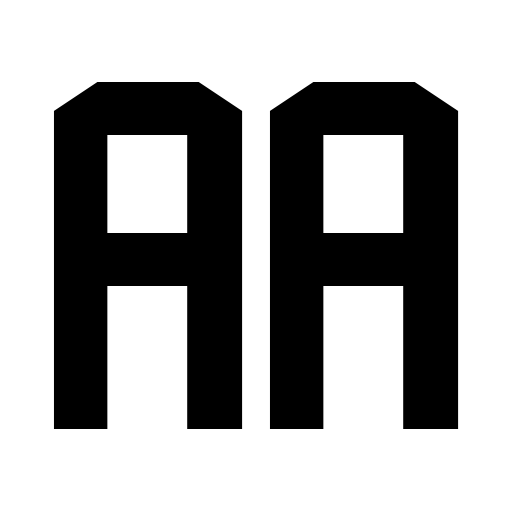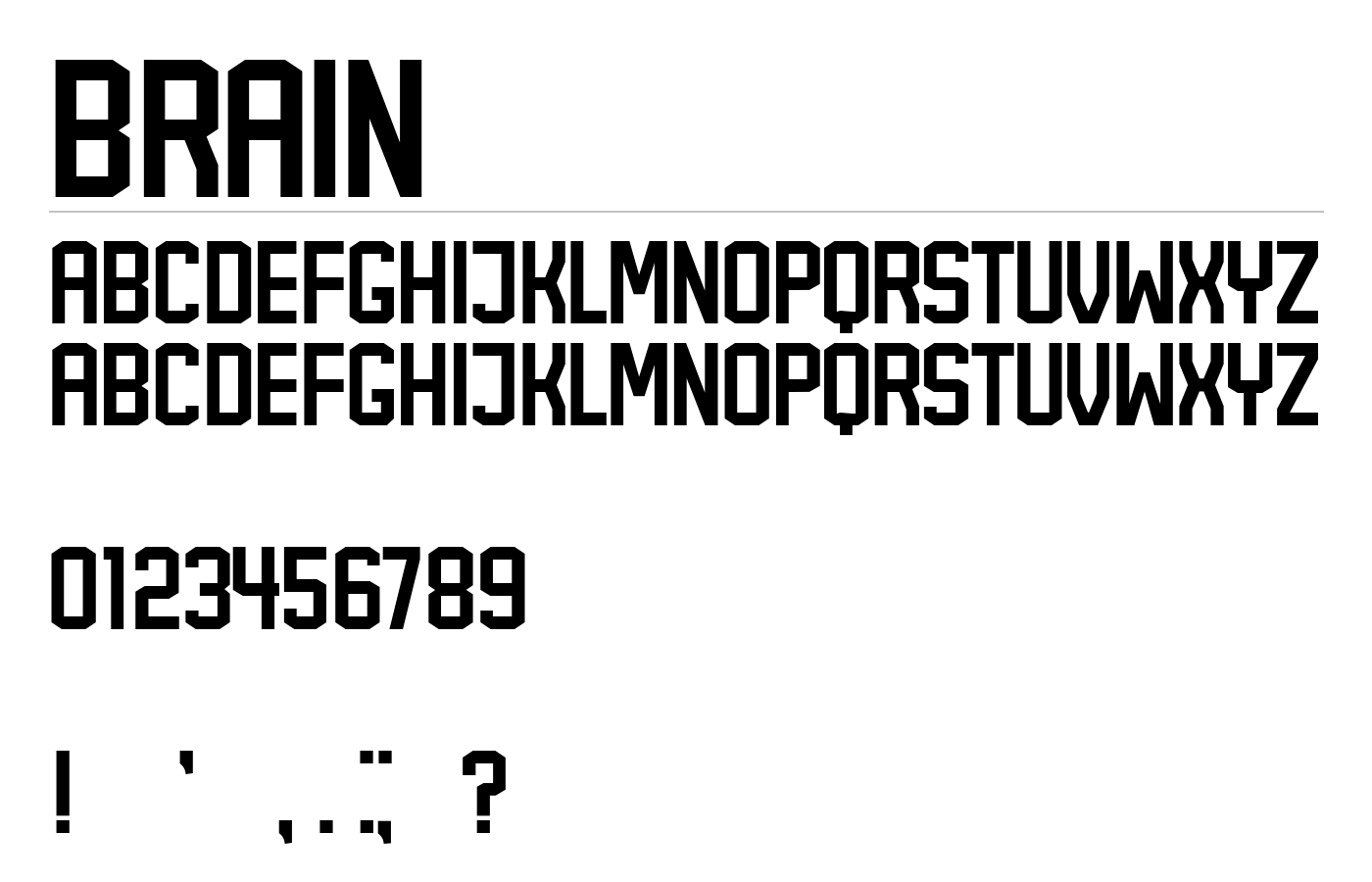
Brain Font is a bold, condensed sans serif typeface with strong geometric shapes and sharp edges, giving it a modern and industrial feel. Its uniform stroke weight and blocky letterforms make it highly legible and impactful, ideal for striking headlines, posters, and branding that demands attention. This font works best in designs that seek a bold, futuristic vibe with a clean and powerful presence.
Brain Font
About Brain Font